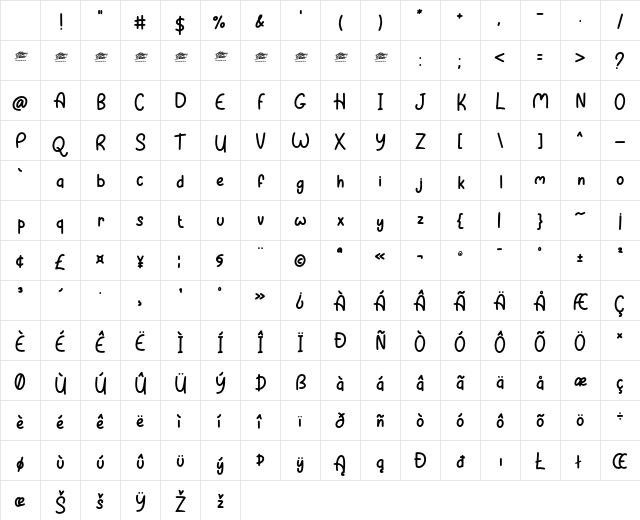
Lemon Press - Personal Use is a composed and adaptable typeface that performs quietly and consistently across a wide range of design contexts.
Pro Tip: Use Lemon Press - Personal Use in both headline and body roles to test its range before committing to a single application.